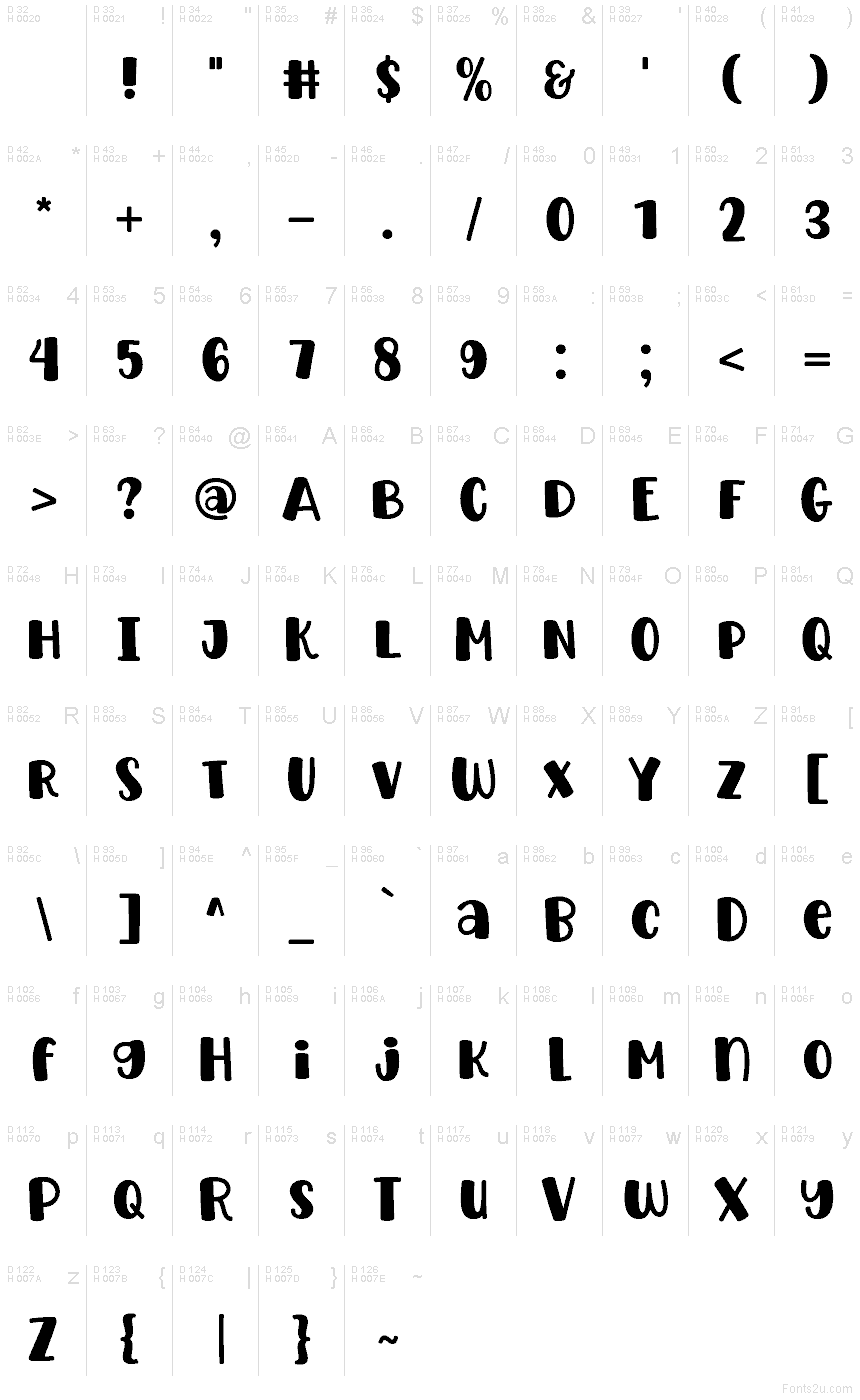
Super Sunkissed
Super Sunkissed font by fsuarez913 is a bold cartoon display typeface, perfect for catchy headlines and fun designs. A mix of retro and casual, the font’s letters showcase its creamy whimsical curves which create a pleasing approachable aesthetic. The friendly feel Super Sunkissed delivers will surely reflect on your designs’ overall looks.
A free download, the font satisfies plenty of use cases; some being logo design, posters, book covers, invitation cards, greeting cards, handwritten text animations in videos and websites. Other examples include banners (digital or printed), apparel designs (T-shirt prints), mug printouts etc.